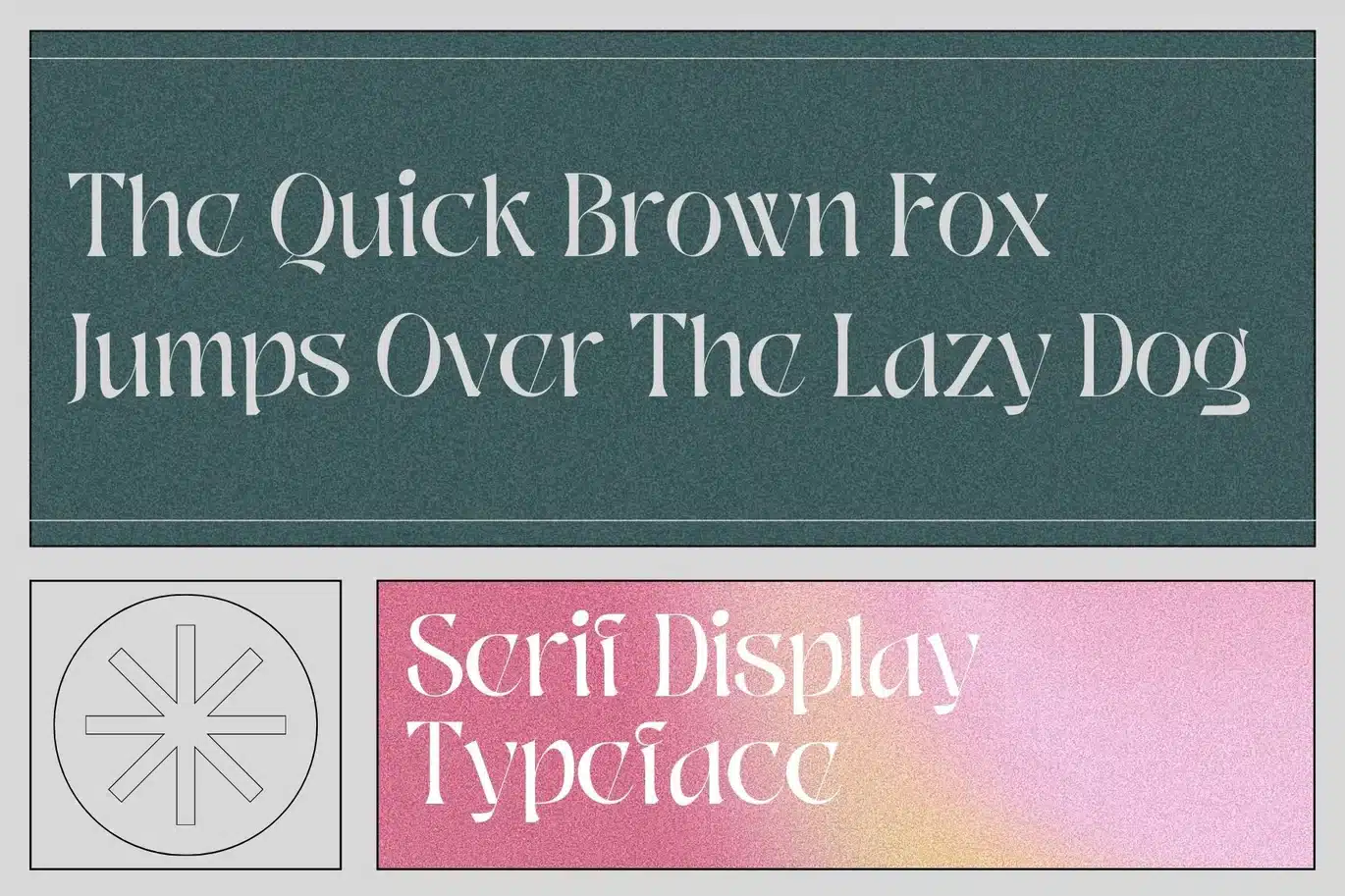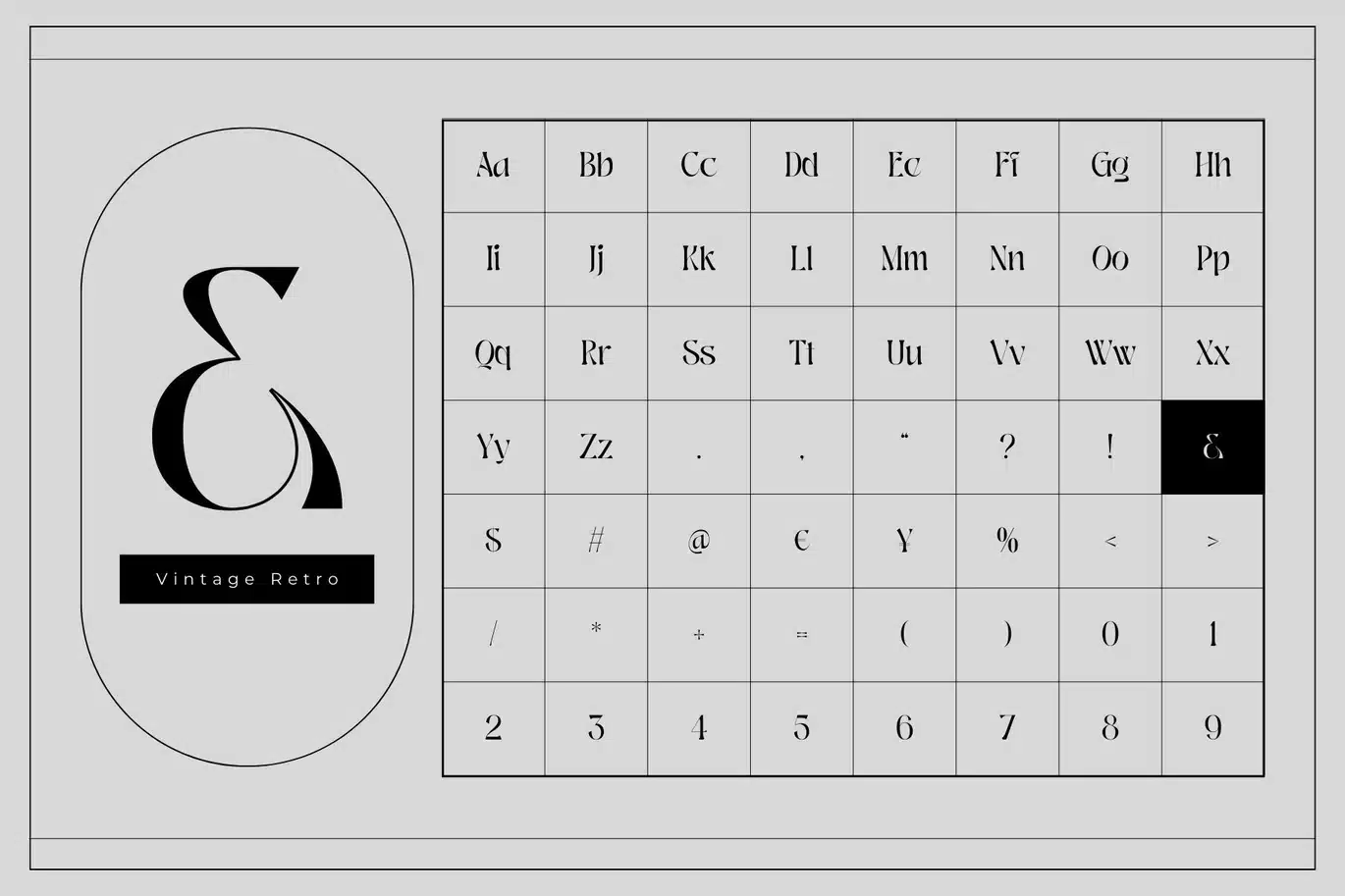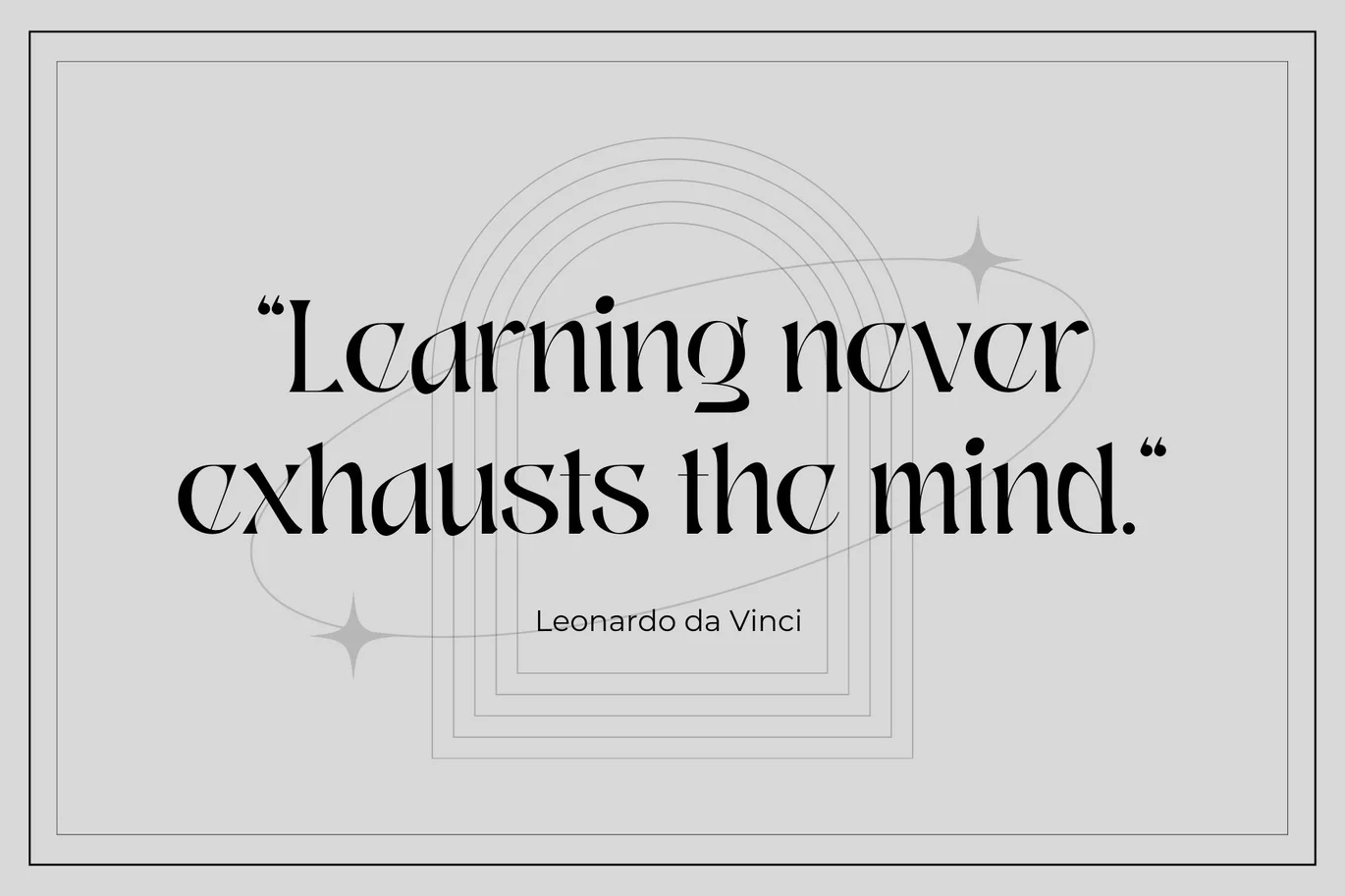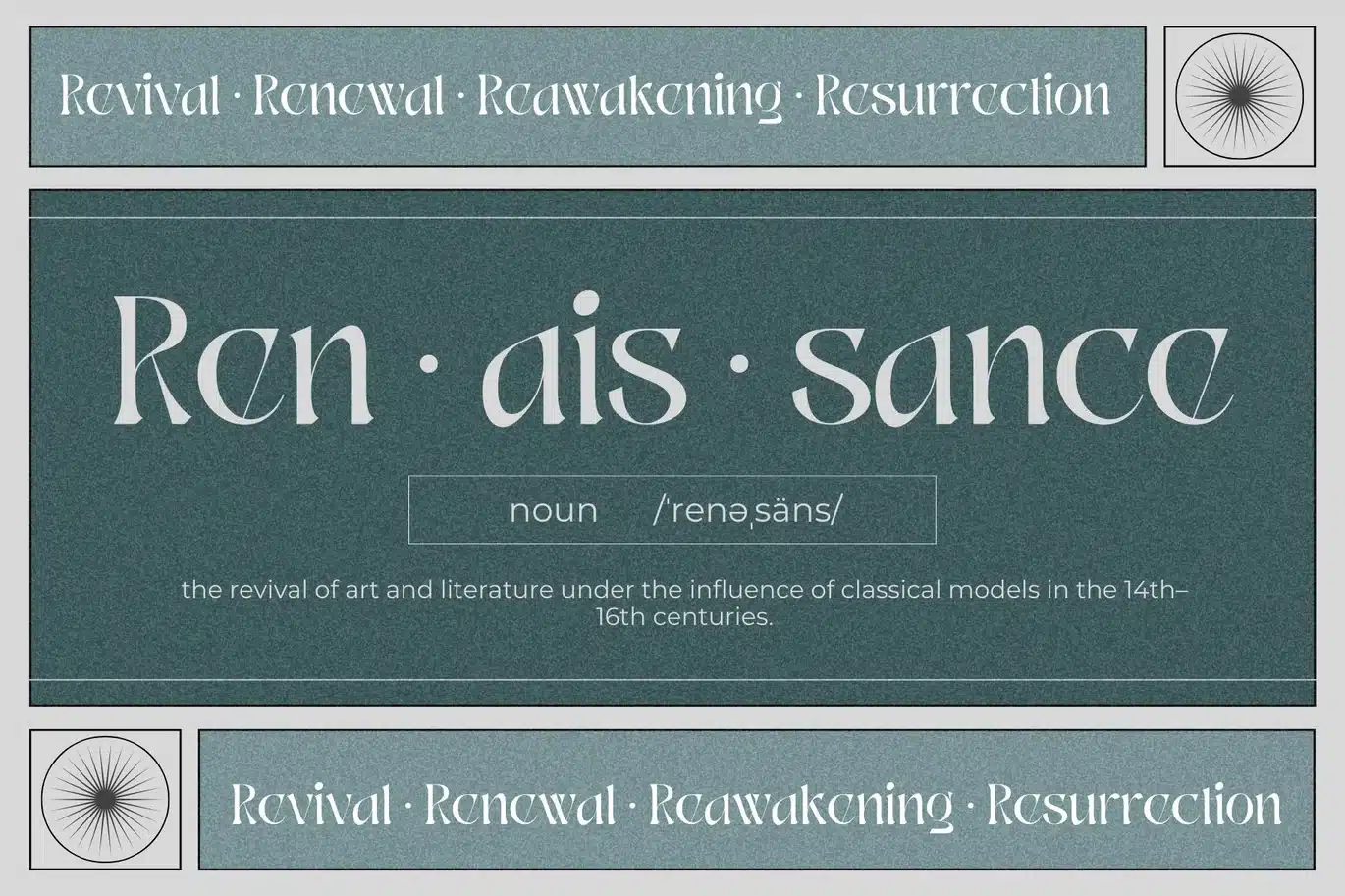
Vintage Retro – Logo Font
sigitdwipa
Vintage Retro Inspired by Renaissance Design Era. Vintage Retro offers beautiful typographic harmony for a diversity of design projects, including logos & branding, social media posts, advertisements & product designs.